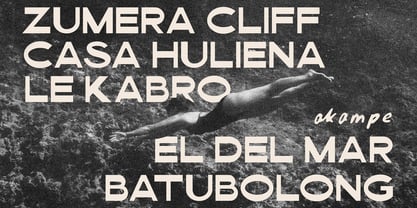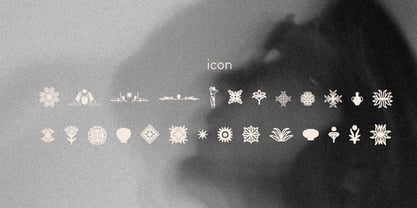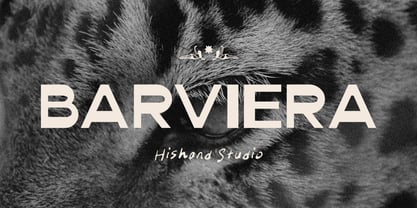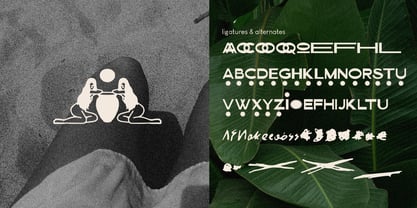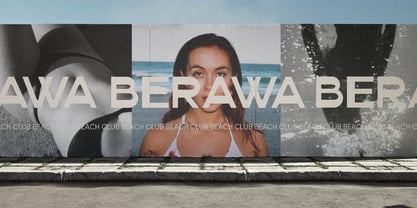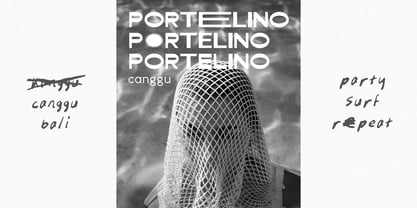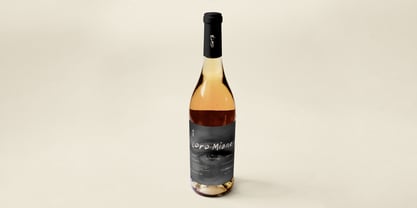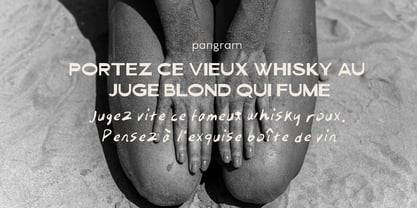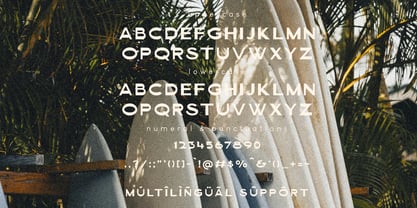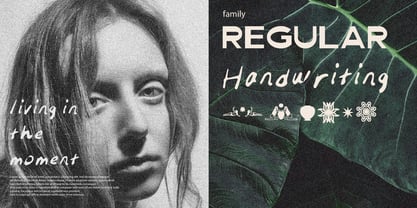
Barviera
by Hishand Studio
The Barviera Font Family was designed by Putu Dody Permana and published by Hishand Studio. Barviera contains 3 styles and family package options. More about this family
Meet your new go-to Barviera display sans-serif font, bold, modern, and effortlessly aesthetic. Designed with clean shapes and playful balance, it brings a fresh creative energy that makes every word stand out. Perfect for logos, posters, and branding, this font captures a mix of confidence and style that feels both professional and fun. Its smooth curves and sharp edges create a visual rhythm that draws attention without trying too hard. Whether you’re building a bold startup identity or crafting a stylish lifestyle brand, this sans-serif typeface adds that cool, modern edge your design deserves. Complete with - ligatures - alternates - regular - hand-writing - icon - kerning - multilingual support
Designers: Putu Dody Permana
Foundry: Hishand Studio